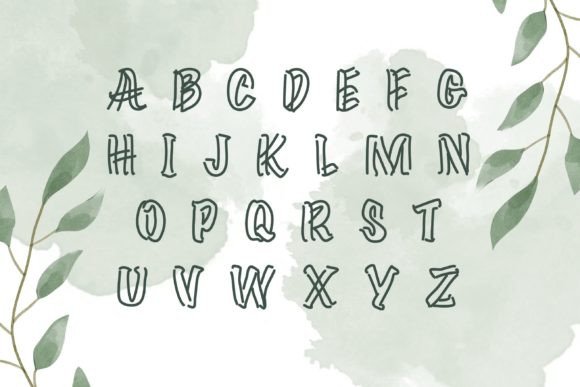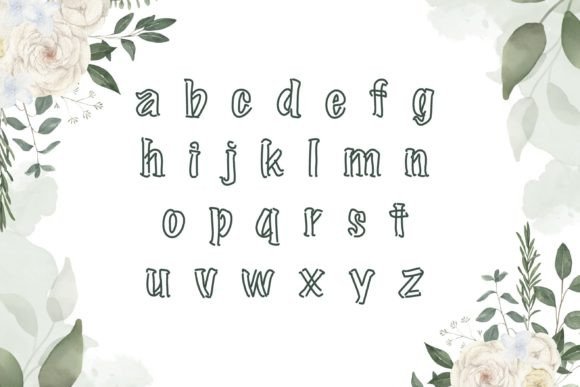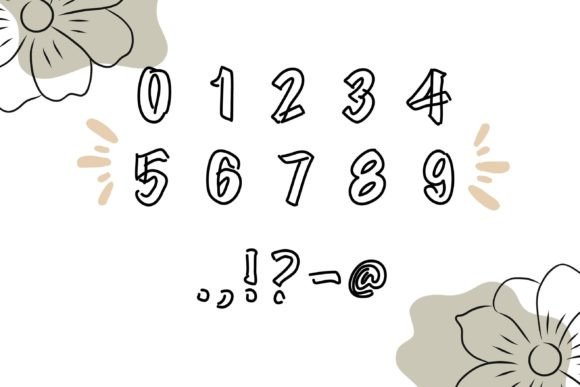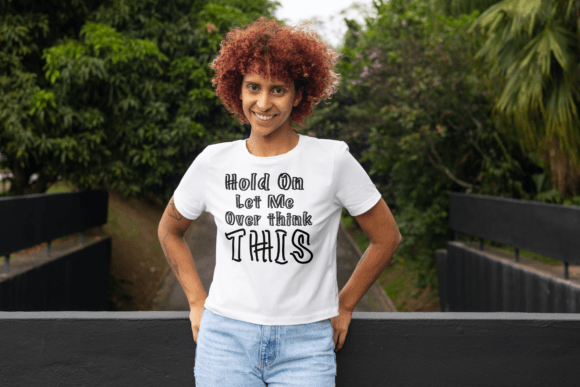
The Butterbread Font: A Delicious Addition to Your Design Library
I’ll never forget the time I was working on a project for a client who wanted a custom mug design with a quote that read, “Life is short, make it sweet.” I had spent hours browsing through my font library, but nothing seemed quite right. The fonts were either too generic, too bold, or just plain boring. That’s when I stumbled upon the Butterbread font, and it was love at first sight! 💕
The elegant, handwritten style of Butterbread immediately caught my attention. The stroke lines were smooth and fluid, making it perfect for concept wording designs and quotes on products like mugs or shirts. I knew right then and there that this font was going to be a fantastic addition to my library, and I’m excited to share its awesomeness with you!
An Honest Review of Butterbread Font
- Unique and elegant handwritten style ✅
- Smooth stroke lines that make it perfect for display designs 💫
- Versatile and can be used for a wide range of design projects 🎨
- Easy to read and understand, even at smaller font sizes 📚
- May not be suitable for body text or long paragraphs of text 📝
- Some characters may appear a bit cramped at smaller font sizes ⚠️
The Backstory of Butterbread Font
The Butterbread font was designed by a talented type designer who wanted to create a unique and elegant handwritten font. Inspired by the warmth and comfort of freshly baked bread, the designer crafted a font that’s both beautiful and inviting. The result is a font that’s perfect for adding a touch of personality to your designs.
| Font Name | Butterbread Font |
| Author | Simple Font |
Q: What is the Butterbread font best used for?
A: The Butterbread font is best used for display designs, quotes, and titles. Its elegant handwritten style makes it perfect for adding a touch of personality to your designs.